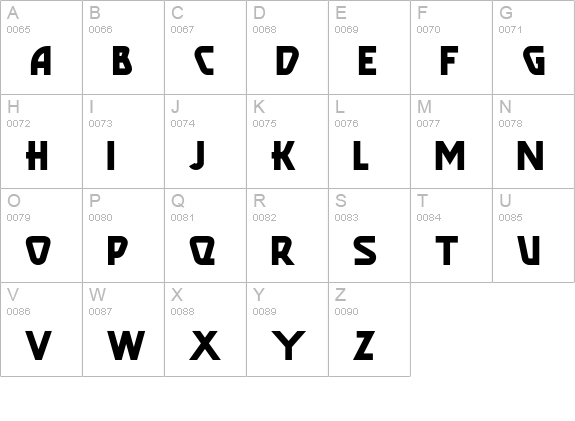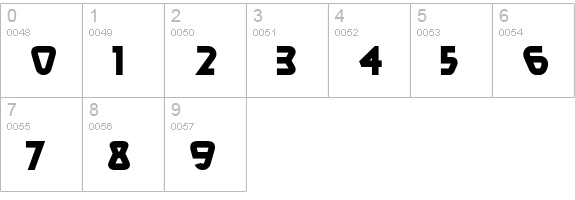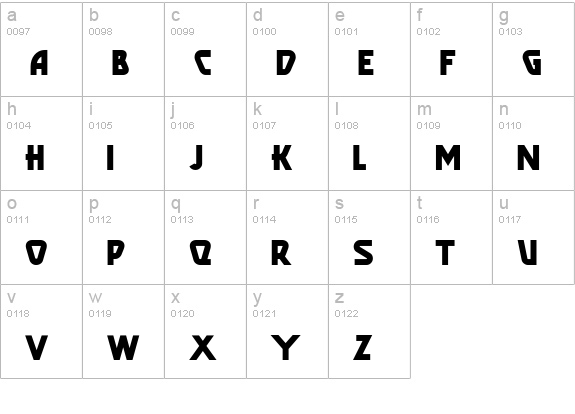
PopularCafeAA Font Details
PopularCafeAA font is a charming and versatile typeface that exudes warmth and friendliness. Its elegant curves and stylish letterforms make it perfect for a wide range of design projects, from branding to invitations to social media graphics. This font is sure to add a touch of sophistication to any design. The best part? PopularCafeAA font is completely free to download at FontsMarket.com. This means you can easily add this beautiful font to your collection without having to spend a dime. Don't miss out on the opportunity to enhance your designs with this delightful font - download PopularCafeAA today and start creating stunning visuals that will captivate your audience.